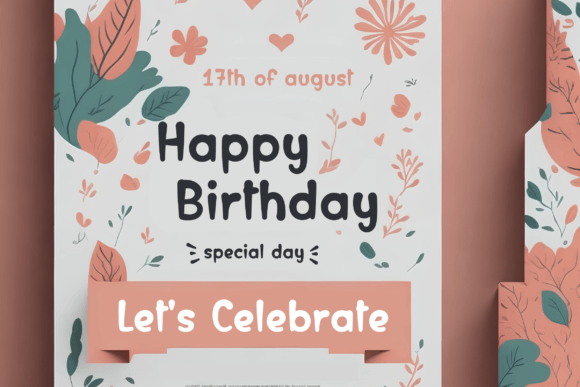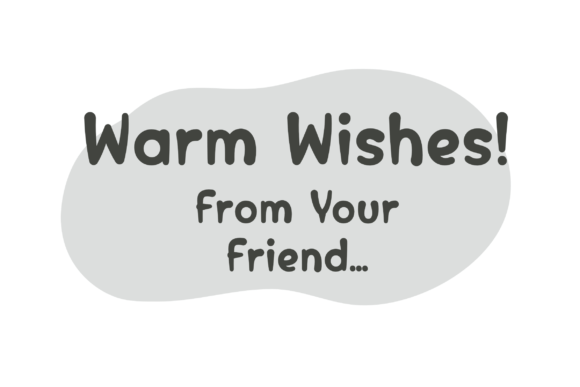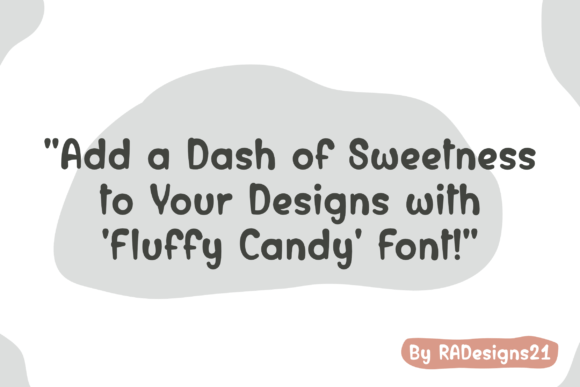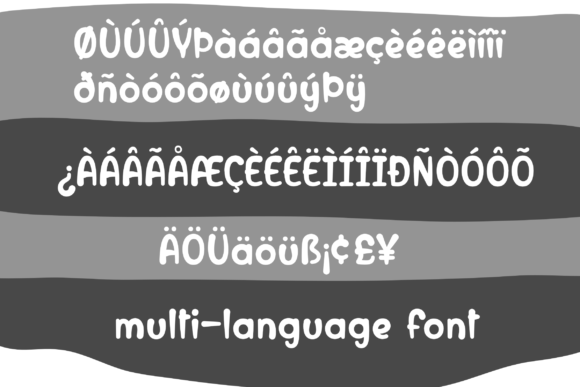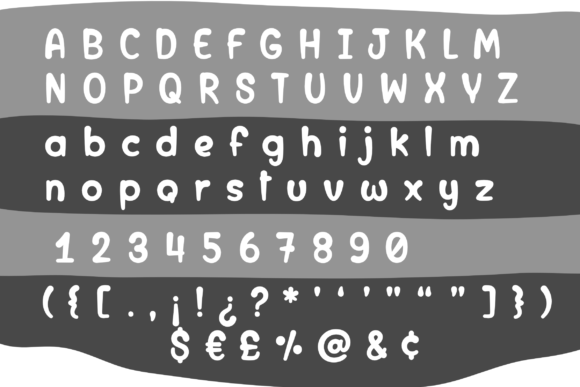
Introducing FluffyCandy Font: The Sweetest Addition to Your Design Toolbox
Are you tired of using the same old fonts in your designs? Do you want to add a touch of whimsy and playfulness to your projects? Look no further than FluffyCandy Font, a charming and delightful typeface that’s sure to bring a smile to your face. With its soft, rounded edges and inviting playfulness, FluffyCandy Font is the perfect addition to your design toolbox.
What is FluffyCandy Font?
FluffyCandy Font is a unique and creative typeface that’s designed to bring a touch of sweetness to your designs. With its rounded edges and smooth lines, this font is perfect for creating playful and eye-catching designs that are sure to capture the attention of your audience. Whether you’re working on a logo, a poster, or a digital project, FluffyCandy Font is the perfect choice for adding a touch of whimsy and fun.
Key Features of FluffyCandy Font
- Soft and Rounded Edges: FluffyCandy Font features soft and rounded edges that give it a smooth and inviting appearance. This makes it perfect for creating designs that are playful, fun, and engaging.
- Whimsical and Playful: With its unique and creative design, FluffyCandy Font is the perfect choice for adding a touch of whimsy and playfulness to your designs. Whether you’re working on a children’s project or a design for a candy company, this font is sure to bring a smile to your face.
- Highly Versatile: FluffyCandy Font is highly versatile and can be used in a variety of design projects, from logos and posters to digital projects and crafts.
- Easy to Read: Despite its playful design, FluffyCandy Font is easy to read and understand, making it perfect for use in body text and other applications where readability is important.
FluffyCandy Font is perfect for designers and crafters who want to add a touch of sweetness and whimsy to their projects. Whether you’re working on a professional design project or a craft project for fun, this font is sure to bring a smile to your face. With its unique and creative design, FluffyCandy Font is the perfect choice for:
- Logos and Branding: Use FluffyCandy Font to create a unique and memorable logo for your business or brand.
- Posters and Flyers: Add a touch of whimsy and playfulness to your posters and flyers with FluffyCandy Font.
- Digital Projects: Use FluffyCandy Font to add a touch of sweetness and fun to your digital projects, from social media graphics to website headers.
- Crafts and DIY Projects: FluffyCandy Font is perfect for use in craft projects, such as card making, scrapbooking, and other DIY projects.
- Experiment with Different Sizes: FluffyCandy Font looks great in a variety of sizes, from small and delicate to large and bold.
- Pair with Other Fonts: FluffyCandy Font pairs well with other fonts, such as sans serif fonts and script fonts.
- Use in Combination with Images: FluffyCandy Font looks great in combination with images, such as illustrations and photographs.
| Font Name | FluffyCandy Font |
| Author | RADesigns21 |
FluffyCandy Font is a unique and creative typeface that’s perfect for adding a touch of sweetness and whimsy to your designs. With its soft, rounded edges and inviting playfulness, this font is sure to bring a smile to your face. Whether you’re a designer or crafter, FluffyCandy Font is the perfect addition to your toolbox. So why wait? Download FluffyCandy Font today and start creating sweet and playful designs that are sure to capture the attention of your audience.